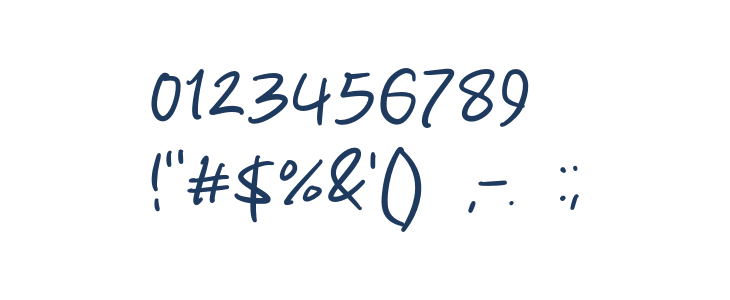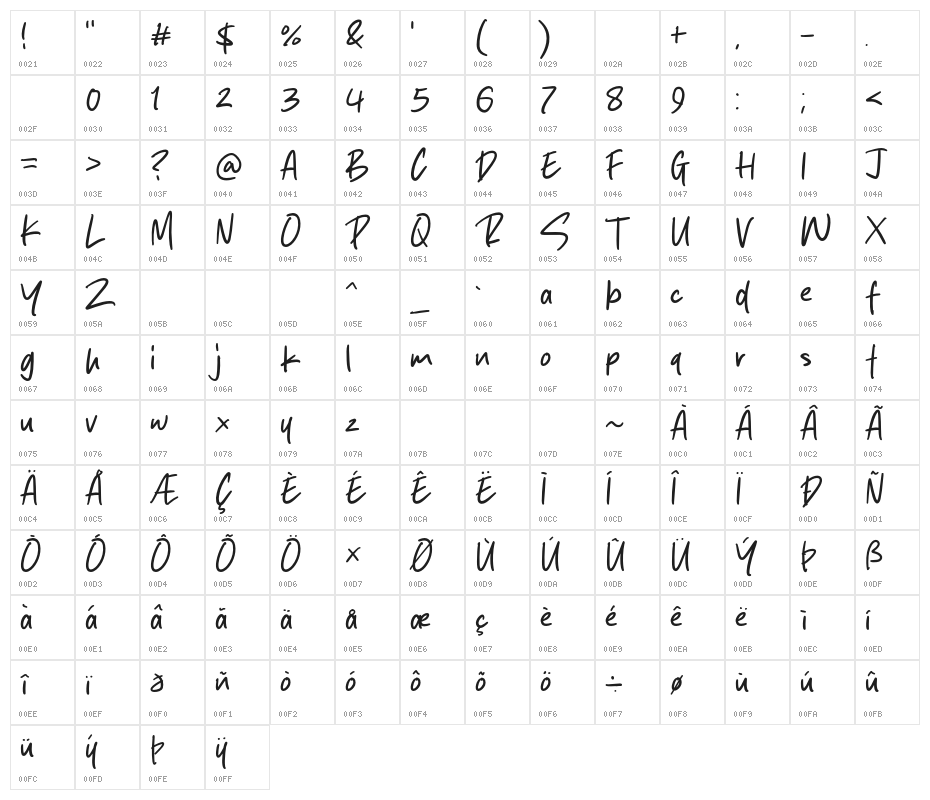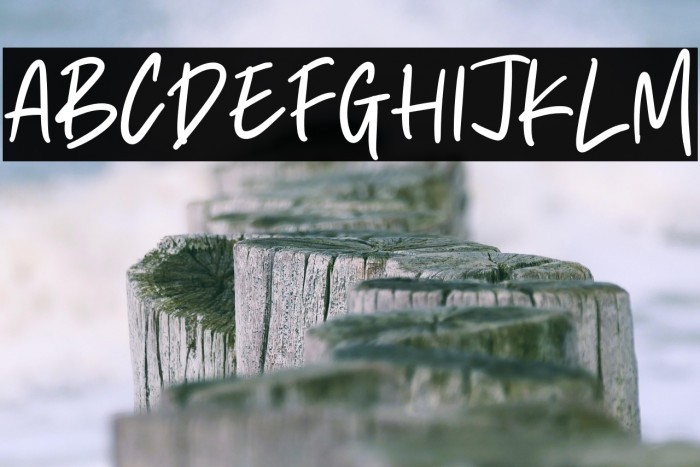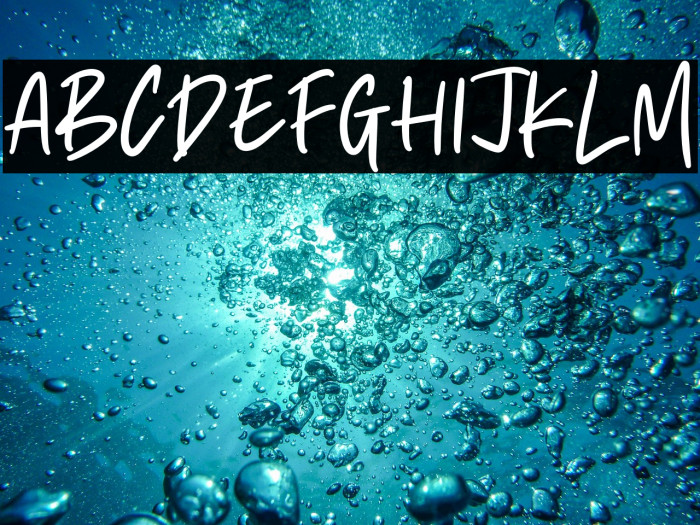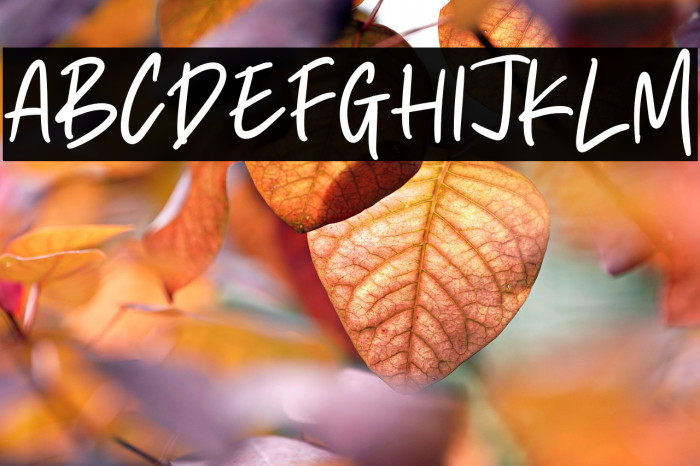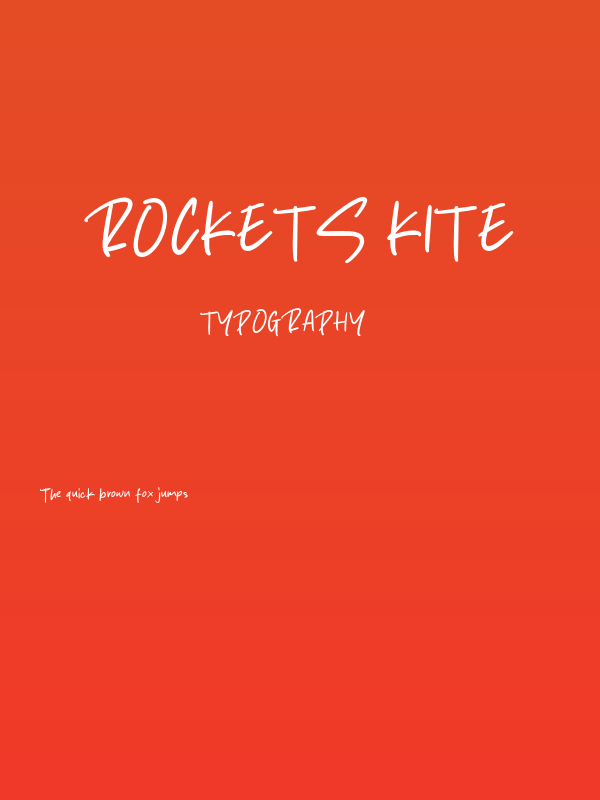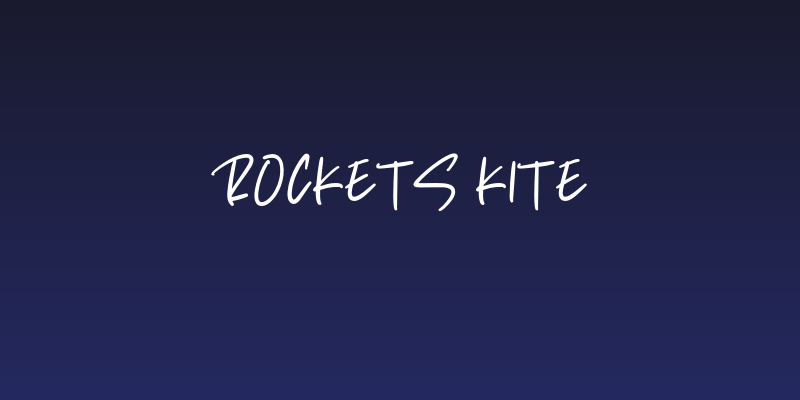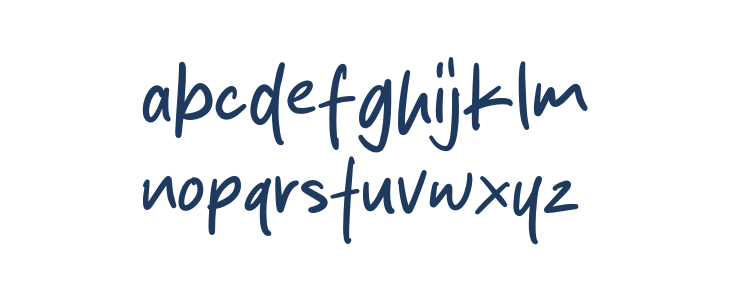
Rockets Kite Font
Rockets Kite Description
This font exhibits a lively and energetic handwritten style, characterized by its fluid and dynamic strokes. The uppercase and lowercase letters maintain a consistent flow, giving a sense of movement and spontaneity. The numerals and special characters complement the alphabet with a similar handwritten flair, making the font versatile for various creative applications. Its informal and approachable appearance makes it ideal for projects that require a personal touch or a casual vibe.
| Use Case | Logos, Headlines, Informal Text |
| Proposed Projects | Ideal for greeting cards, personal branding, social media graphics, and informal invitations. |